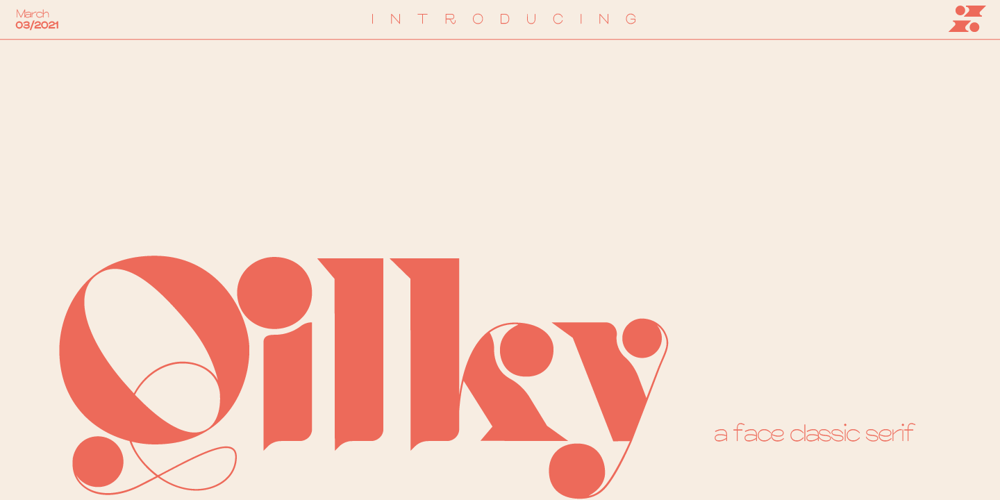
Qilky Font Family was designed by Khair Unnas and published by Khaiuns. Qilky contains 1 styles and family package options. I’m present to you, new retro serif called Qilky!Qilky is a stylish font It has both modern and retro look – clear, modern and fun. Helps to create layout design in 60s or 70s design projects.Perfect for branding, weddings, social media, product design, stationery and advertising – Qilky is versatile enough to add that classic element to just about any project where a special touch of class is required. This font have more than 50 unique alternate and ligature that to give your logo,business card and another project to a unique vintage look.I hope you have a blast using Qilky.Thanks for use this font ~ Khaiuns